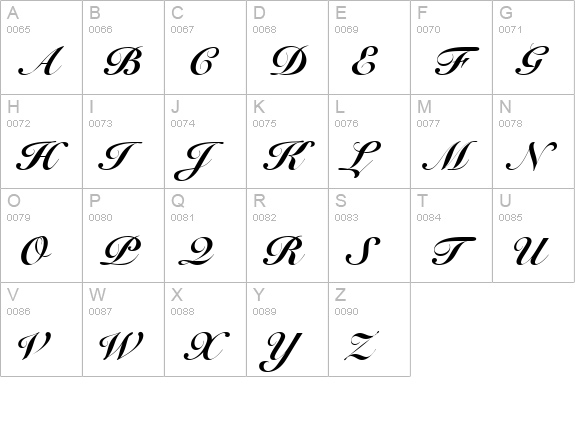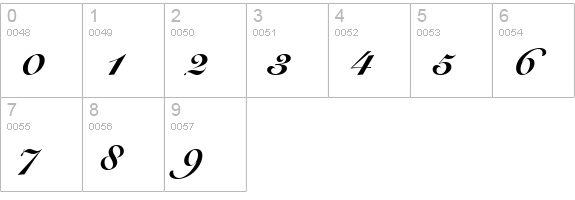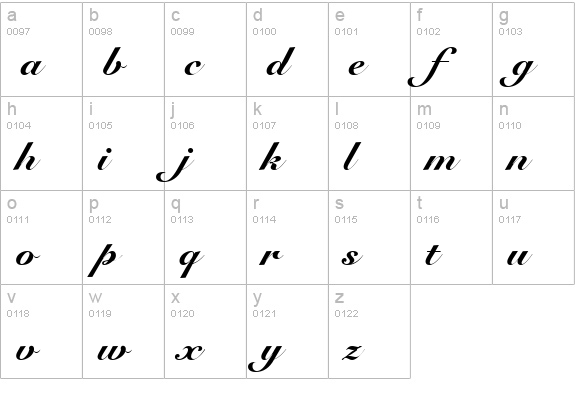
Snell Black BT is a maximum-weight, dramatic variant in the Snell typeface family \xE2\x80\x94 well suited to maximum-impact headlines, posters, and packaging.
Introducing the marvelous Snell Black BT font, a true embodiment of elegance and sophistication. With its sleek and modern design, this typeface effortlessly captures attention and adds a touch of class to any project. The Snell Black BT font exudes confidence and professionalism, making it perfect for a wide range of applications such as logos, headlines, branding materials, and more. This striking font features bold and sharp letterforms that convey a sense of power and authority. Its carefully crafted curves and precise angles create a harmonious balance between strength and finesse. The Snell Black BT font commands attention with its bold presence, leaving a lasting impression on viewers. But what makes the Snell Black BT font even more remarkable is the fact that it is available for free download at FontsMarket.com. Yes, you read that right, this incredible font can be yours without spending a penny. FontsMarket.com offers a vast collection of high-quality fonts, and the Snell Black BT font is no exception. With just a few clicks, you can enhance your design projects with this exceptional font. Whether you're a professional designer, a creative enthusiast, or simply someone looking to add a touch of sophistication to your work, the Snell Black BT font is the perfect choice. Its versatility and visually stunning aesthetics make it a must-have in any font library. So why wait? Download the Snell Black BT font today from FontsMarket.com and experience the freedom of creativity at your fingertips. With this font, you can effortlessly elevate your designs and make a lasting impression. Don't miss out on the opportunity to enhance your projects with this exceptional font – get it now and let your creativity soar!